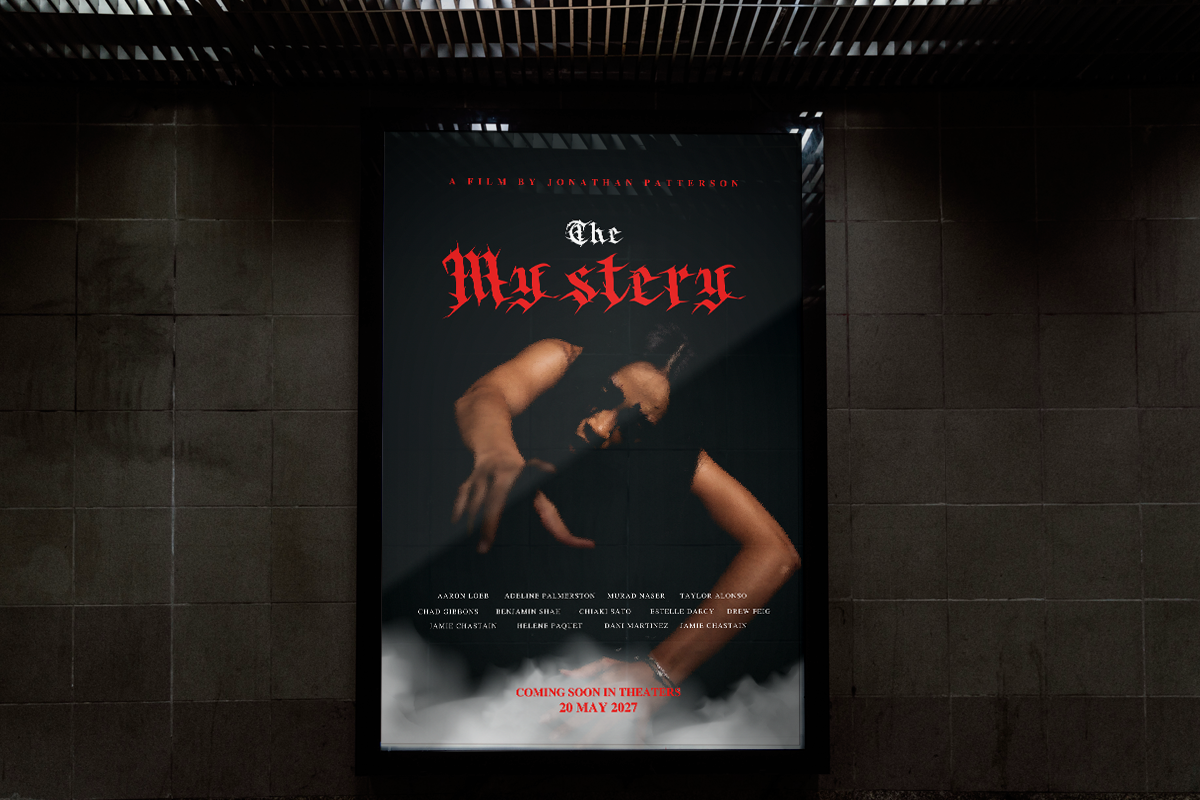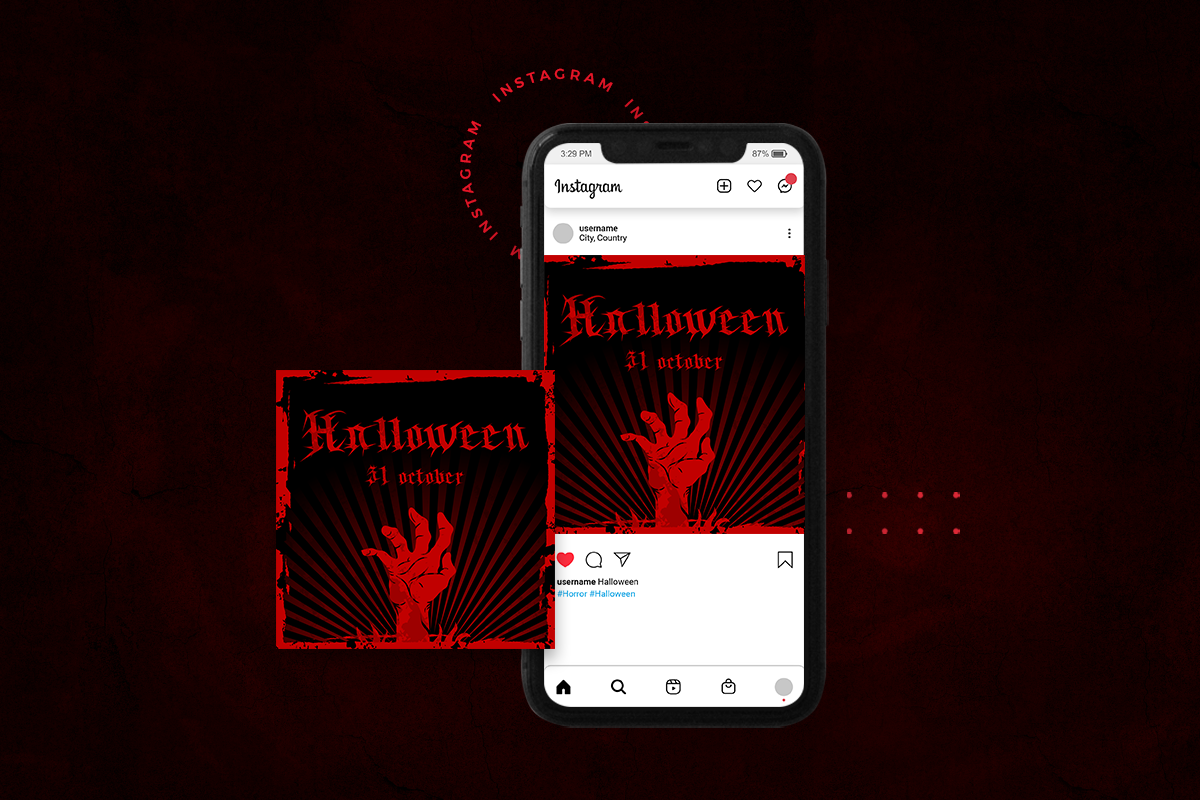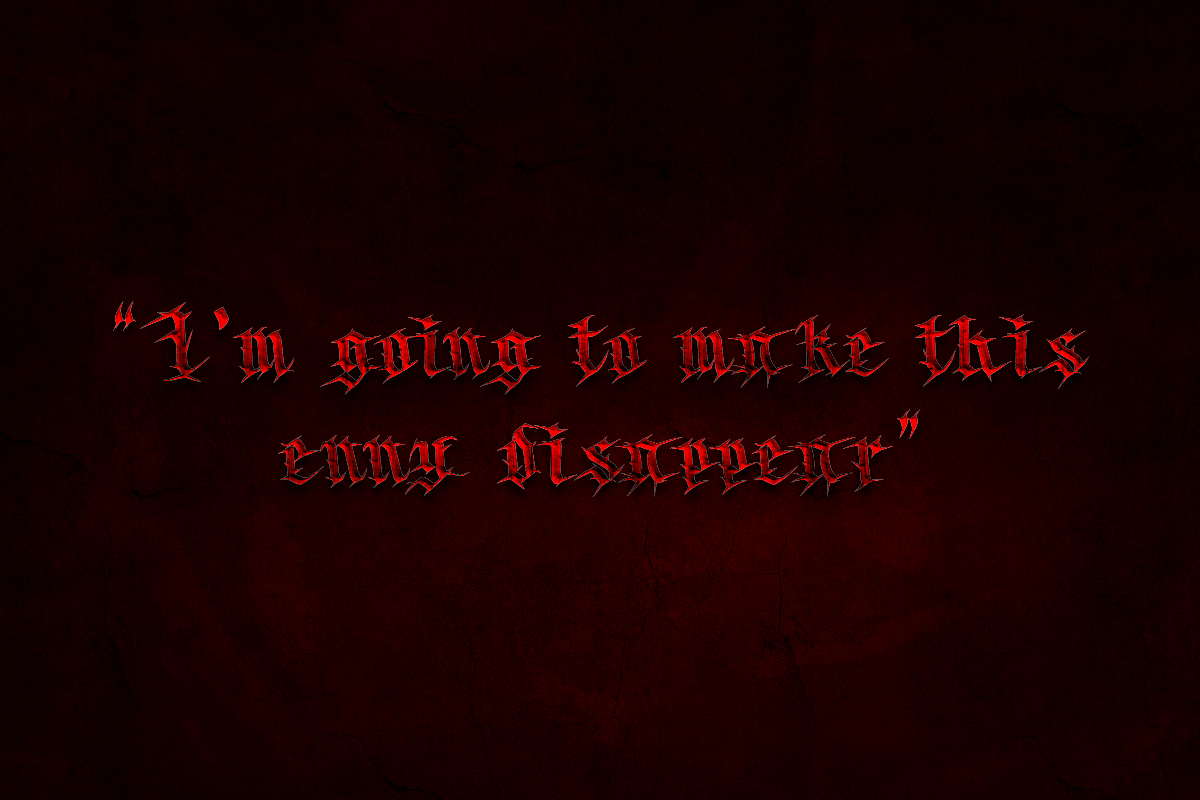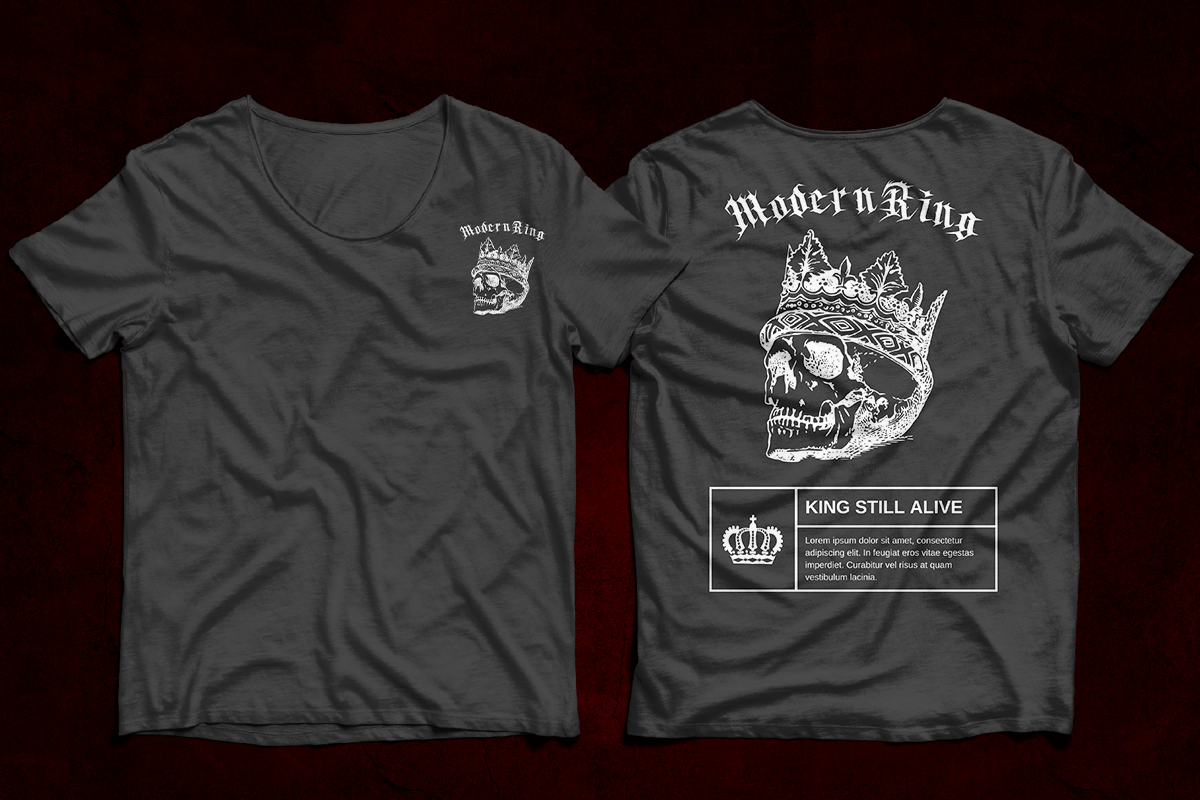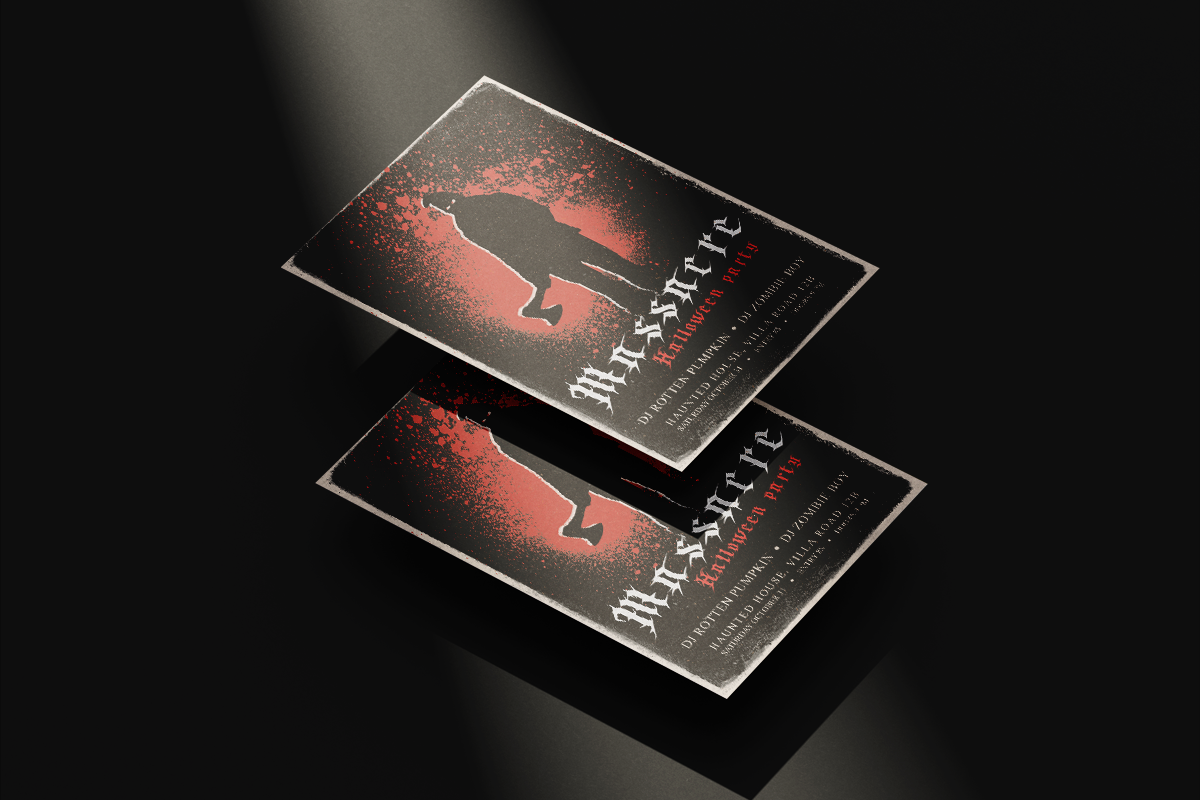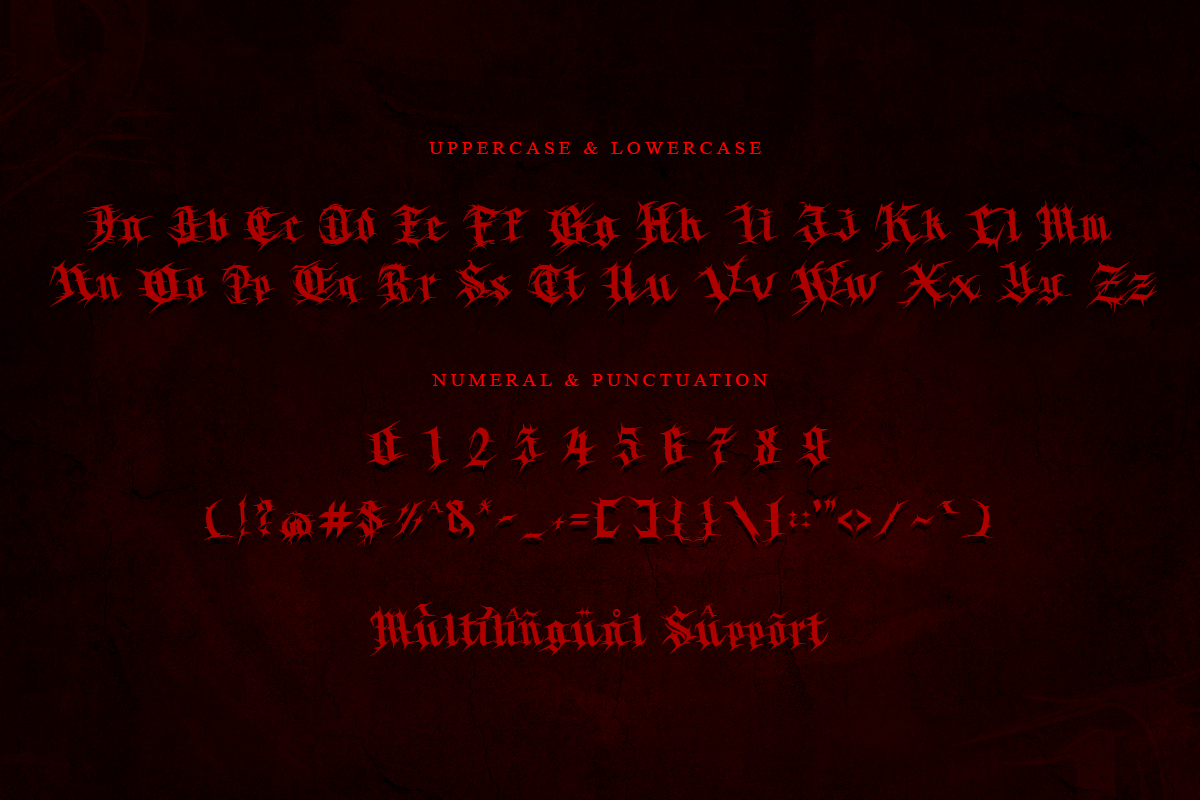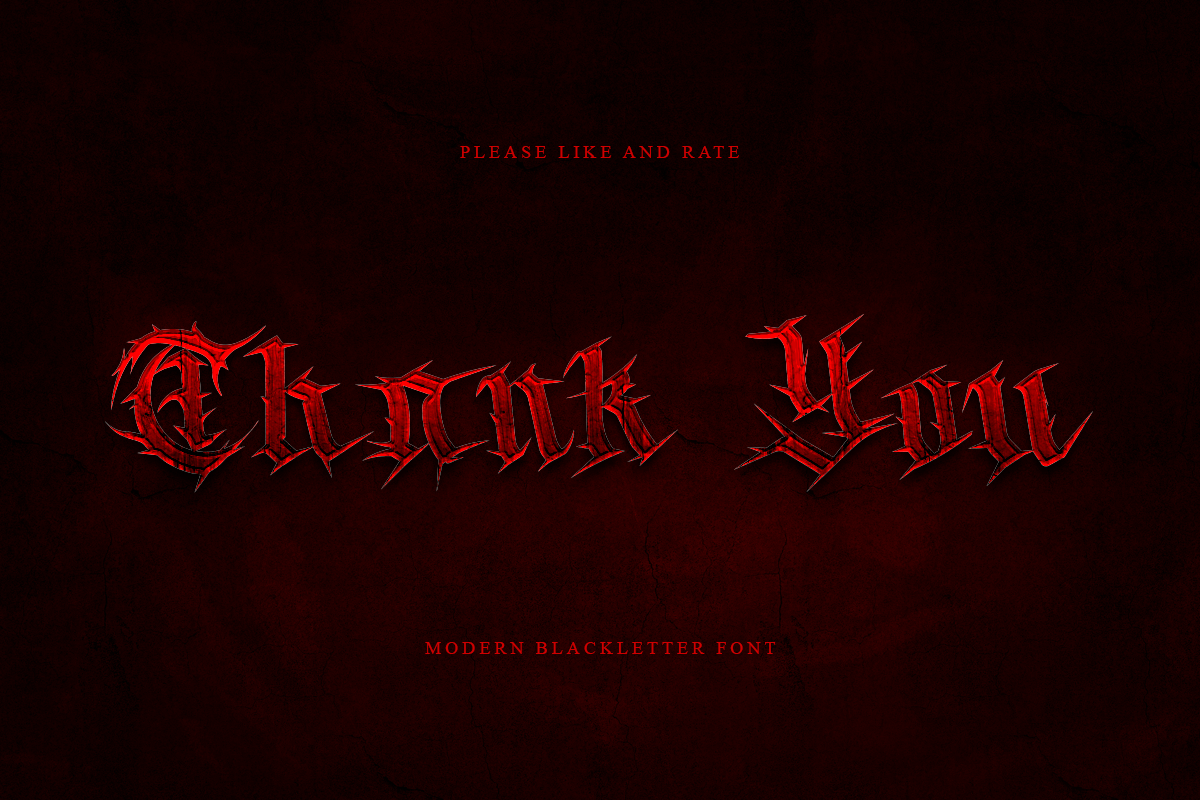
Thorns Blackletter Font After making many typefaces, Font Kong is back with a new type of font called Thorns font. From all angles, this font is part of the modern Blackletter font. Even though it's modern font, this font still carries the spirit of old blackletter fonts. This font was designed and restated with a more expressive style than traditional blackletter fonts. Thorns was created to add a variety of fonts ready for use online and in print. Thorns font has a shape that shows it's part of Blackletter font just by looking at it. If you look closely, this Thorns font looks like a wood carving surrounded by sharp spikes, almost like a dragon's tail. From that explanation, we can imagine how this font will fit with various equipment. Thorns font is perfect for tattoo designs as it helps to convey the owner's fierce expression. Not only that but this font can also be used for lettering on t-shirts, jackets, and hats. If you want to use it for printing, you can use this font to create a cover for a mystery book, or a rock and roll-themed poster. Seeing the suitable fonts used, it is hoped that Thorns font can be the answer to your confusion in choosing the most appropriate font. For your social media needs, you can use and install fonts in our collection of blackletter fonts to use as Instagram Fonts, Facebook Fonts, and Twitter Fonts. As well as applying this font can use in several applications, such as Figma fonts, Canva fonts, Freepik fonts, Adobe fonts, Google fonts, Instagram fonts, and Social Media Fonts.